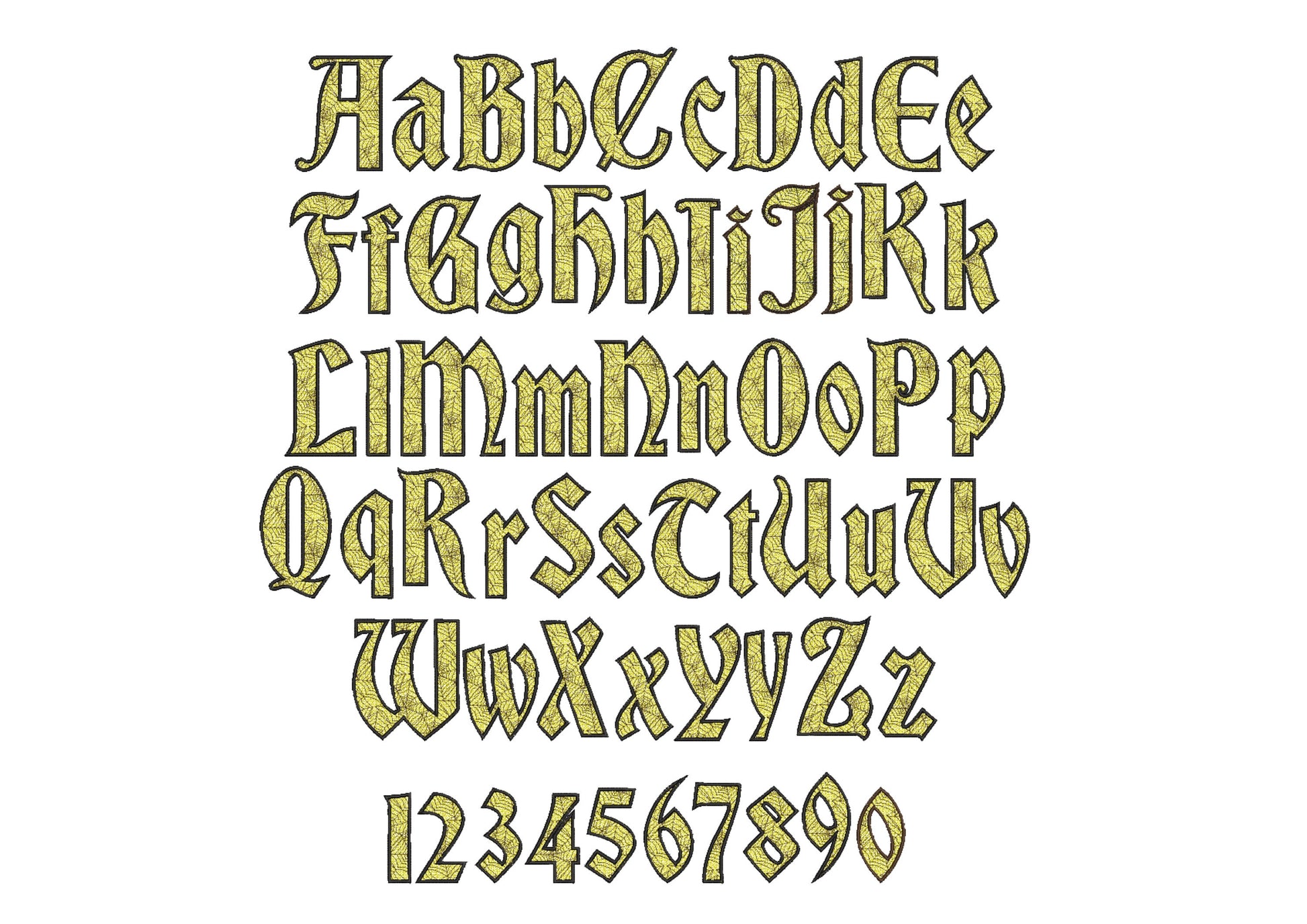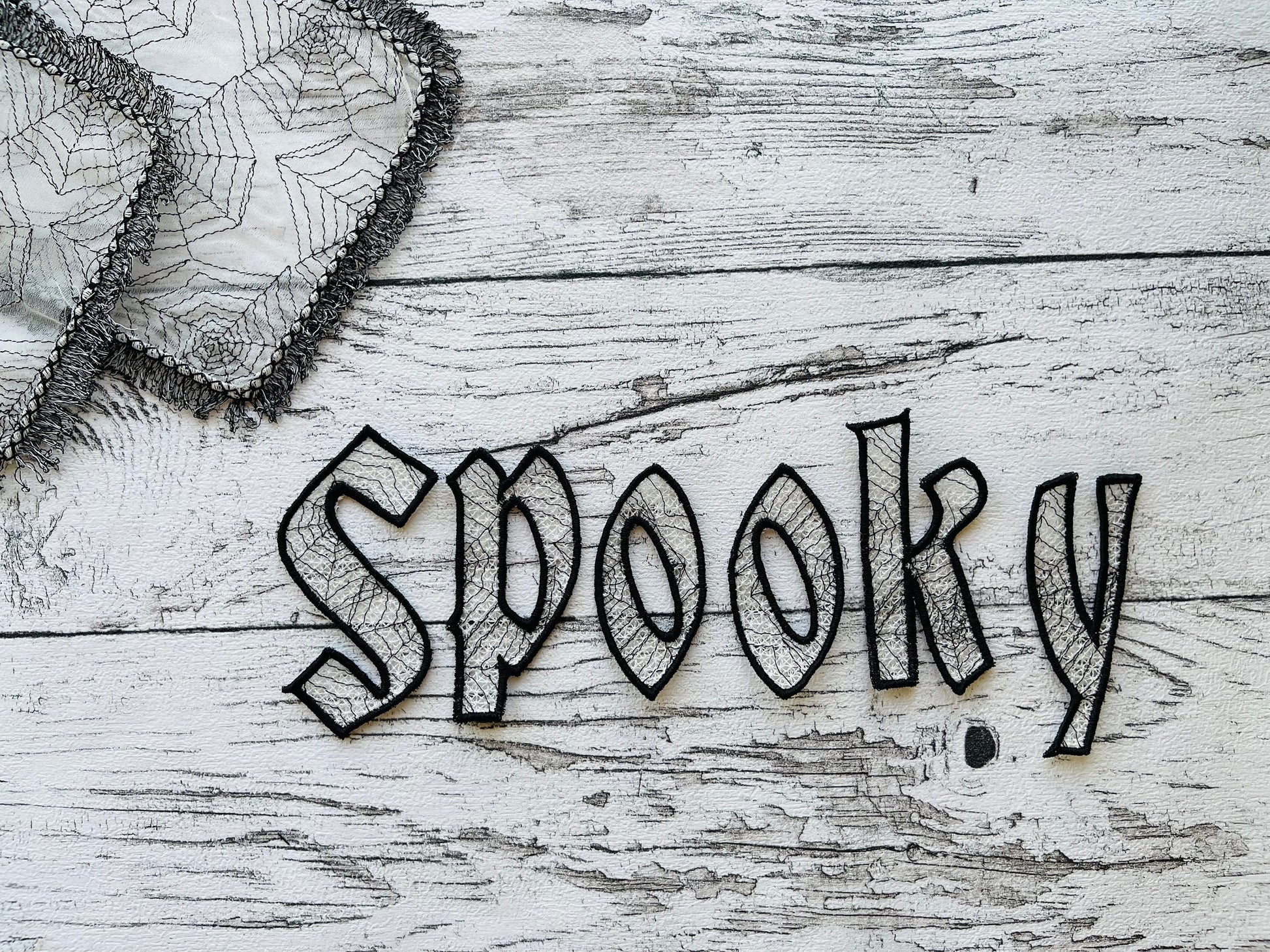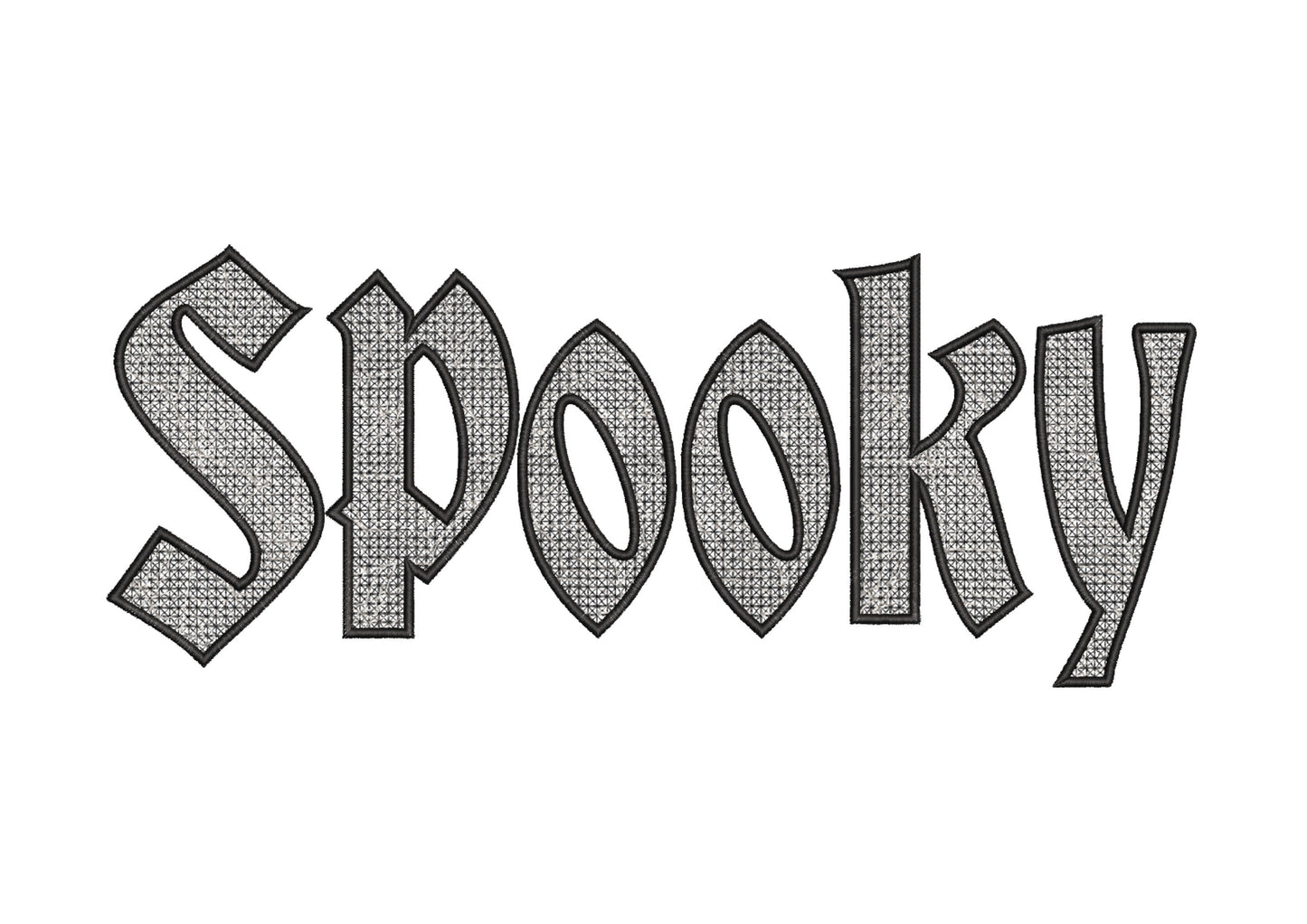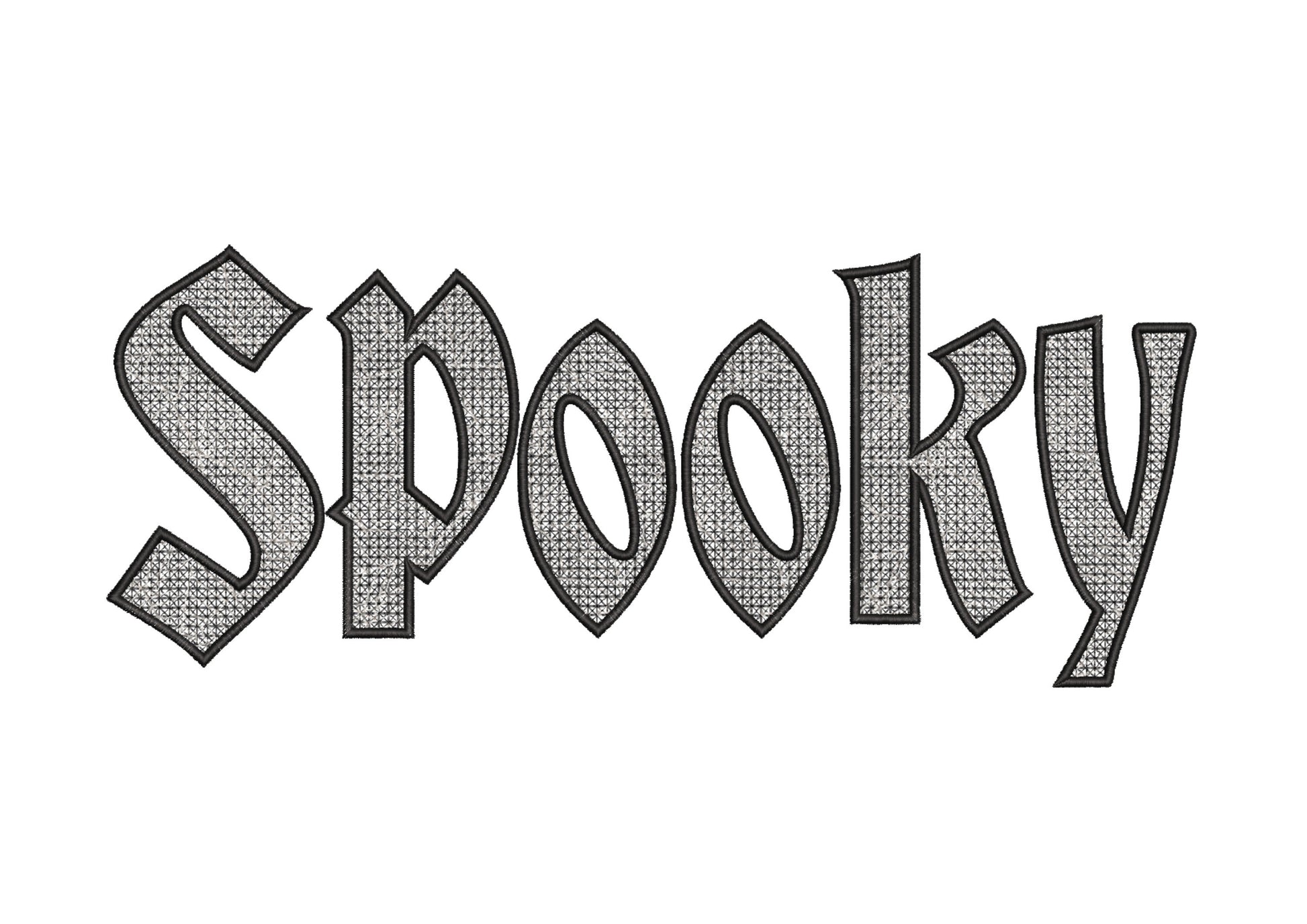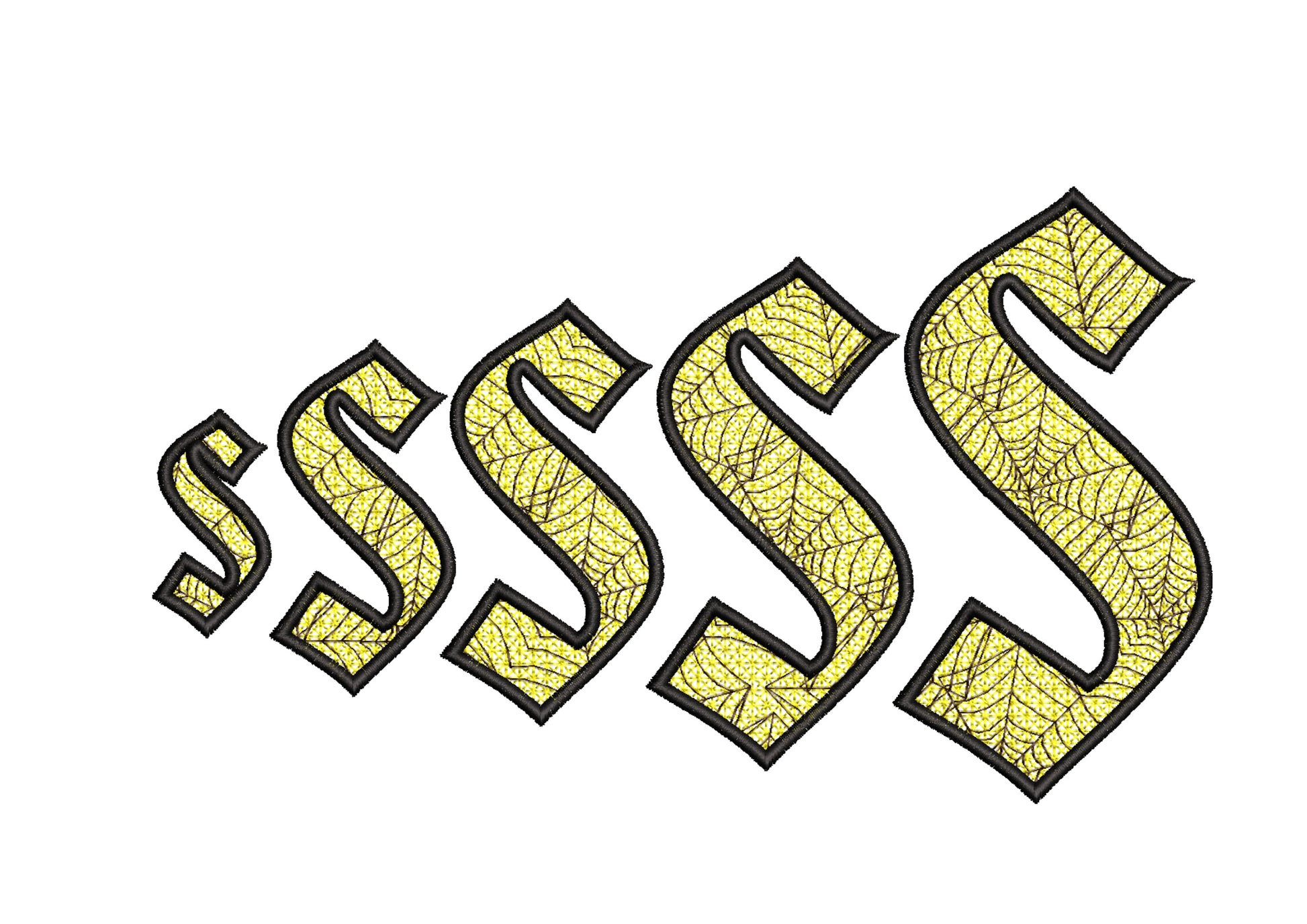
Uppercase and lowercase letters, numbers and & , - . in five sizes: 2.2, 2.8, 3.4, 4 and 4.9 inches. Stitched on water-soluble stabilizer, then rinsed, so no fabric is needed.